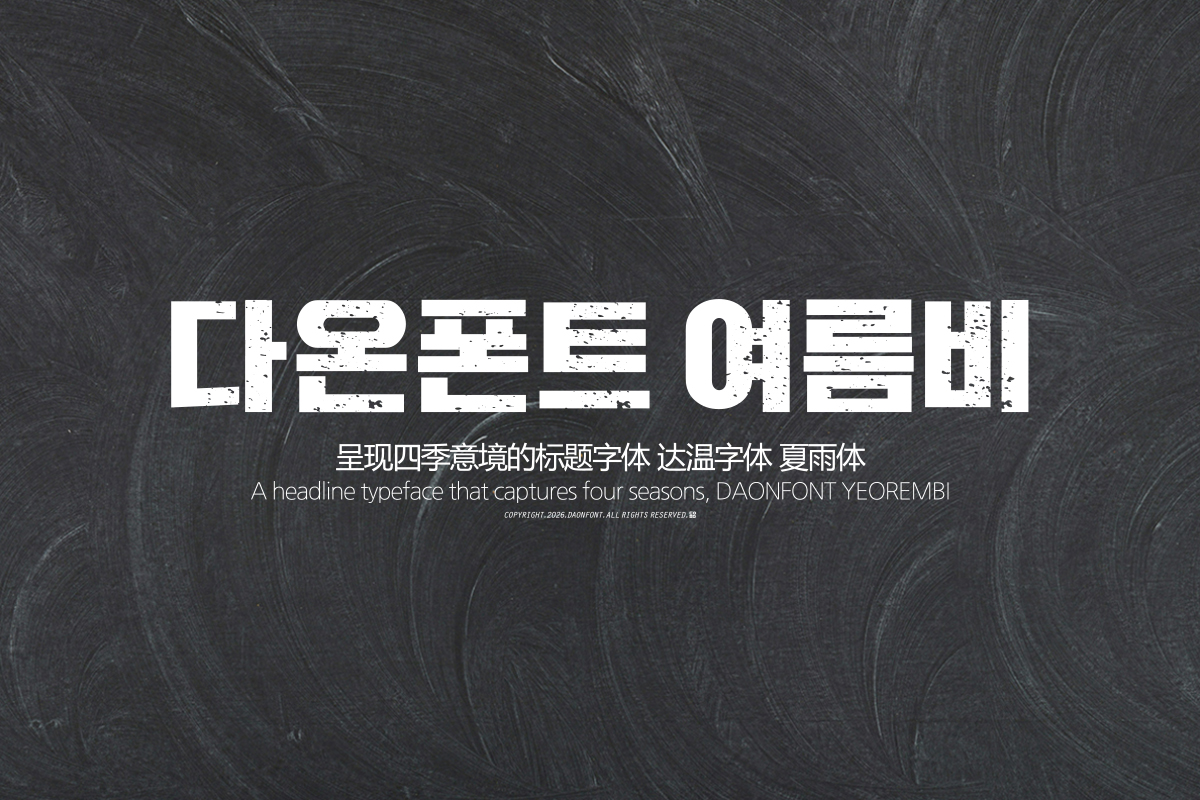
DAON SAGYE YEOLEUM
DaonFont 'SAGYE YEOLEUM' is a Korean display typeface that expresses summer rain through ink bleeding effects within a square Gothic style structure. It is a typeface that simultaneously conveys a sense of stability and rough weight due to the bleeding effects spread over the bold Gothic strokes.